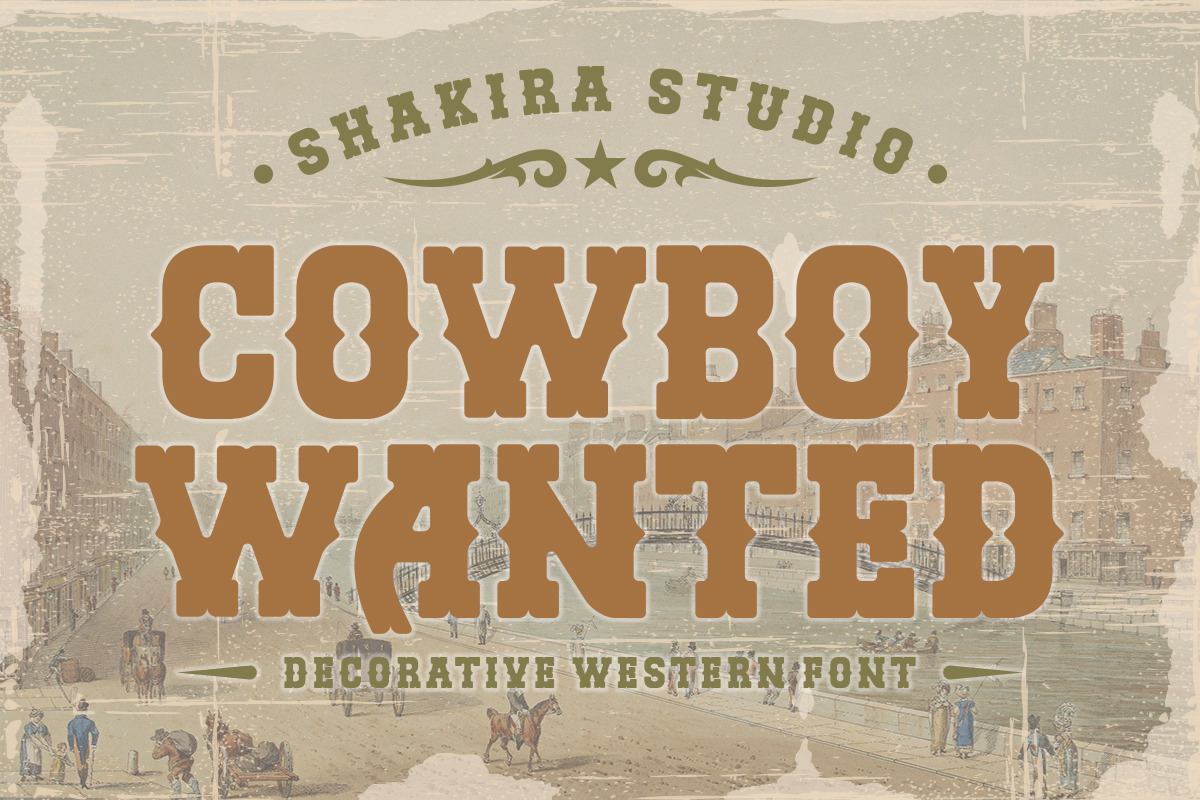
Cowboy Wanted - Western Retro Serif Font Free Download is a bold, vintage-inspired serif typeface that captures the spirit of the Wild West with a retro twist. Featuring strong serifs, dynamic lines, and a rugged charm, this font is perfect for cowboy-themed projects, Western posters, rustic branding, retro signage, and vintage-themed merchandise.
The design embodies the strength and adventure of the American frontier, making it ideal for projects that evoke nostalgia and a sense of rugged history. Whether you’re creating a Western movie poster, a vintage-themed logo, or a rustic event invitation, Cowboy Wanted adds that authentic, retro feel.